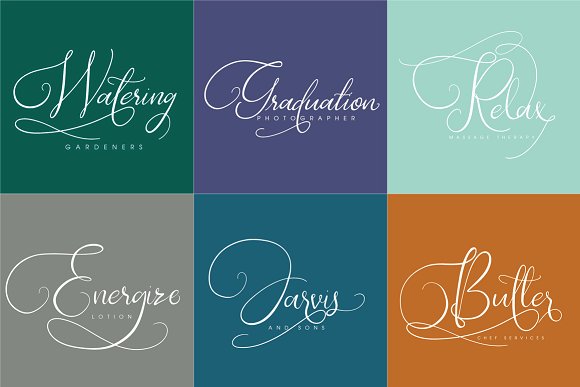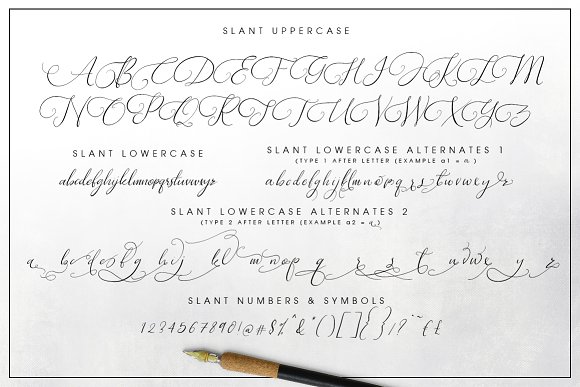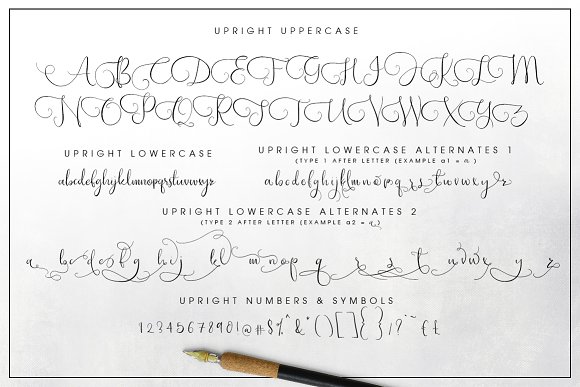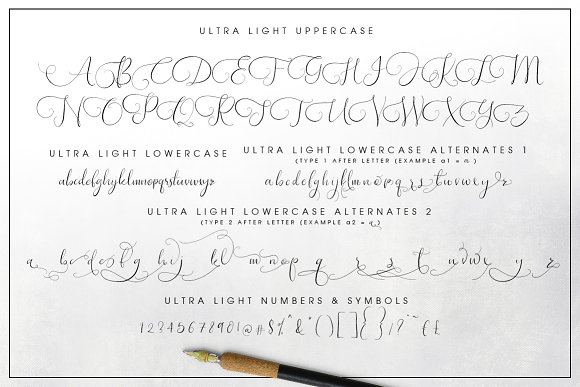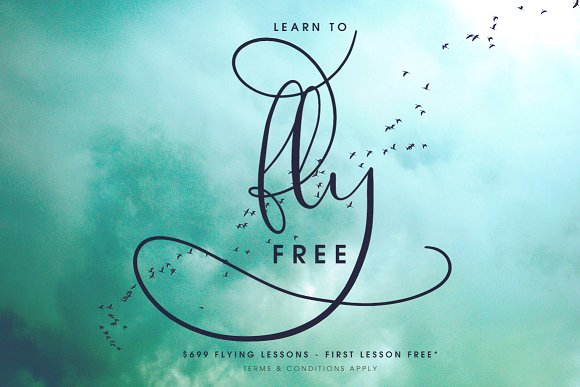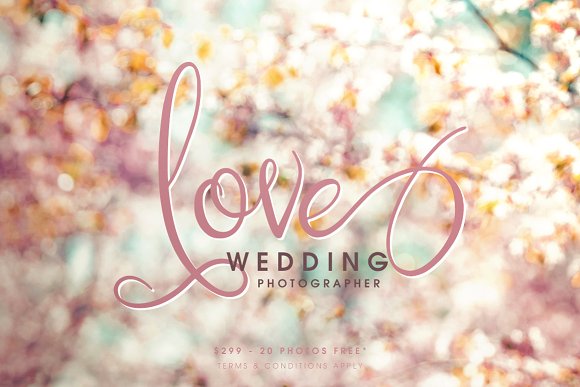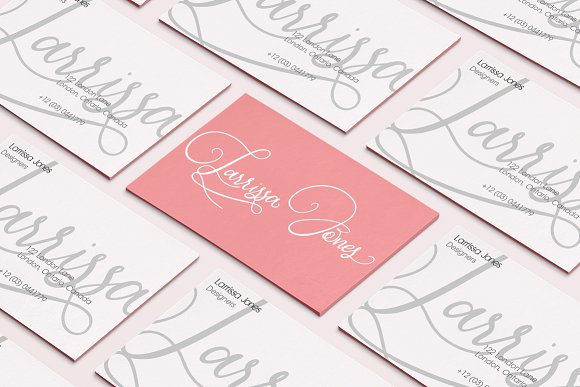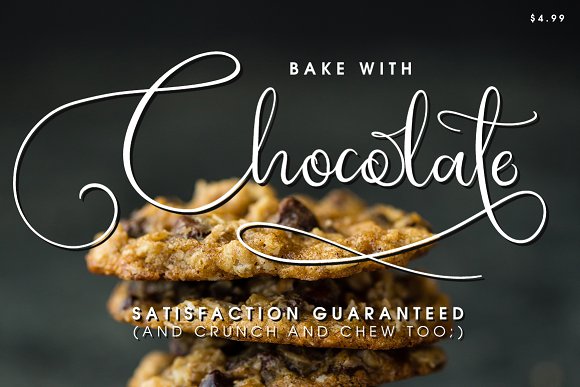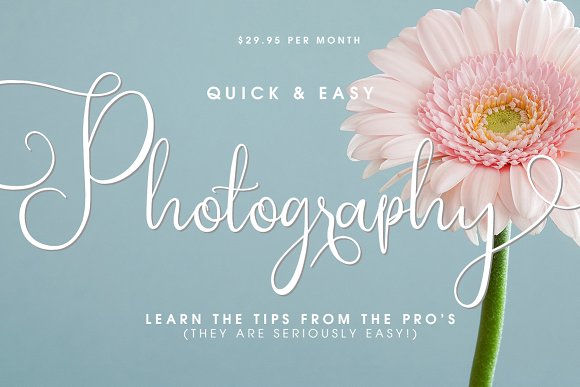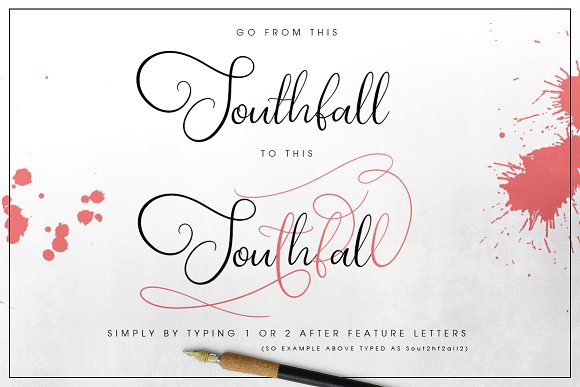
HomeScript FontsSouthfall Font Script Fonts Southfall Font FacebookXPinterestWhatsApp Southfall Font Poster 2 Southfall Font Poster 3 Southfall Font Poster 4 Southfall Font Poster 5 Southfall Font Poster 6 Southfall Font Poster 7 Southfall Font Poster 8 Southfall Font Poster 9 Southfall Font Poster 10 Southfall Font Poster 11 Southfall Font Poster 12 Southfall Font Poster 13 About Southfall Font Southfall is a beautiful handcrafted font created by Creativeqube. DOWNLOAD ON CREATIVE FABRICAThis font is sold and delivered by Creative Fabrica. Font Canyon may earn a commission if you buy through this link. People also explored Lavande Font Super Drip Font Lampion Canned Corn Flower Blooming Font Astel Font Creative Signature Font Wedding Font Holedan Heart Font 296 0 TagsSouthfall Font Previous articleSpeechless Heart FontNext articleSoutherner Font LEAVE A REPLY Cancel reply Comment: Please enter your comment! Name:* Please enter your name here Email:* You have entered an incorrect email address! Please enter your email address here Website: Save my name, email, and website in this browser for the next time I comment. Personal Use Free Electroharmonix Personal Use Free Read more about this font Lovetle Personal Use Free Read more about this font ABC Personal Use Free Read more about this font Dr.Marz Personal Use Free Read more about this font BLOG Top 10 Handwritten Fonts That Elevate Your Designs Top 10 Handwritten Fonts That Will Elevate Your Designs Handwritten fonts bring a warm, personal touch to every creative project. Whether you're designing logos, invitations,... Modern Sans-Serif Fonts That Brands Love in 2025 Transform Your Website: Elevate Your Typography with 7 Best Web Font Generators Elegant Wedding Invitation Fonts – Handwritten & Script Fonts